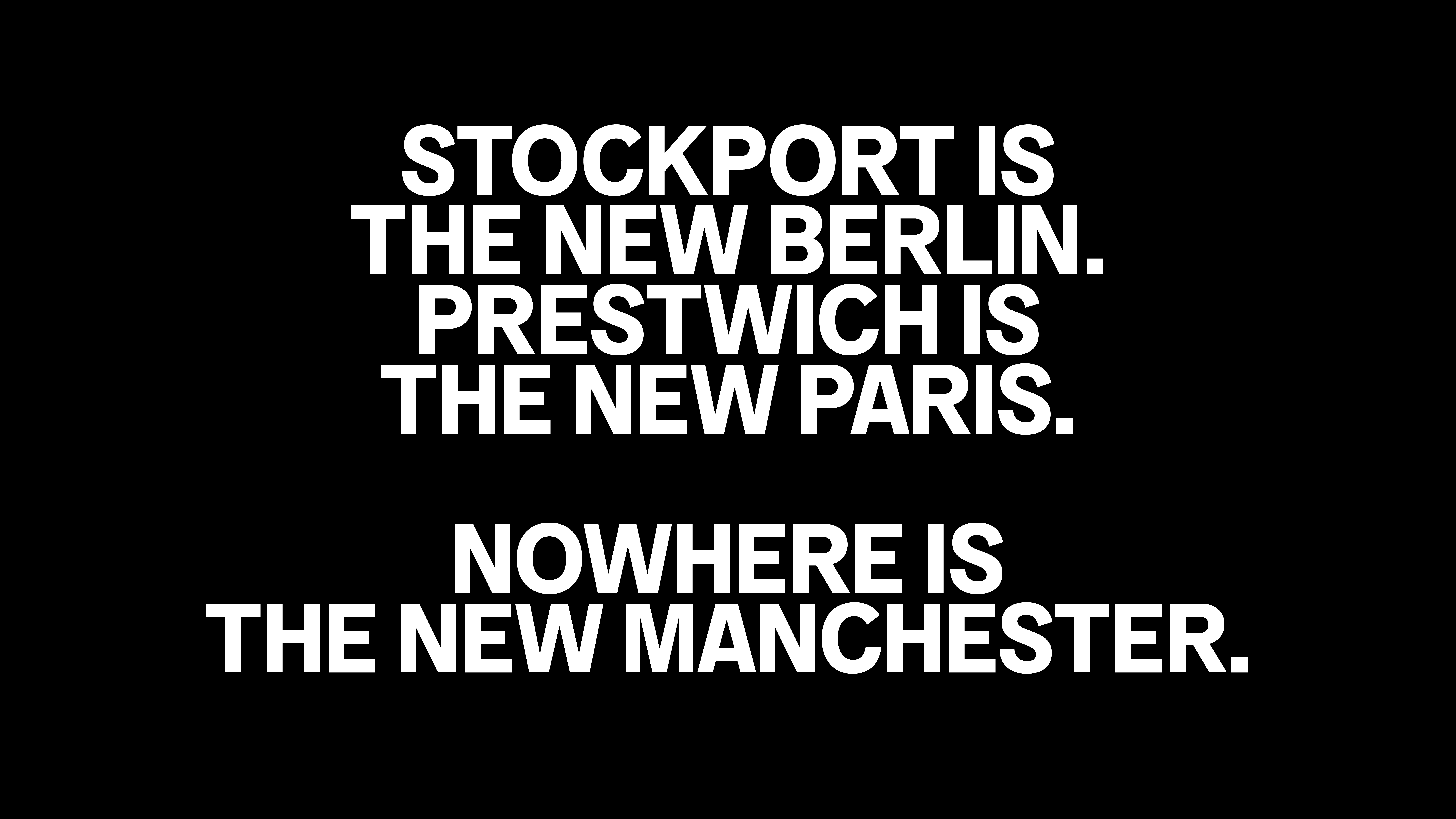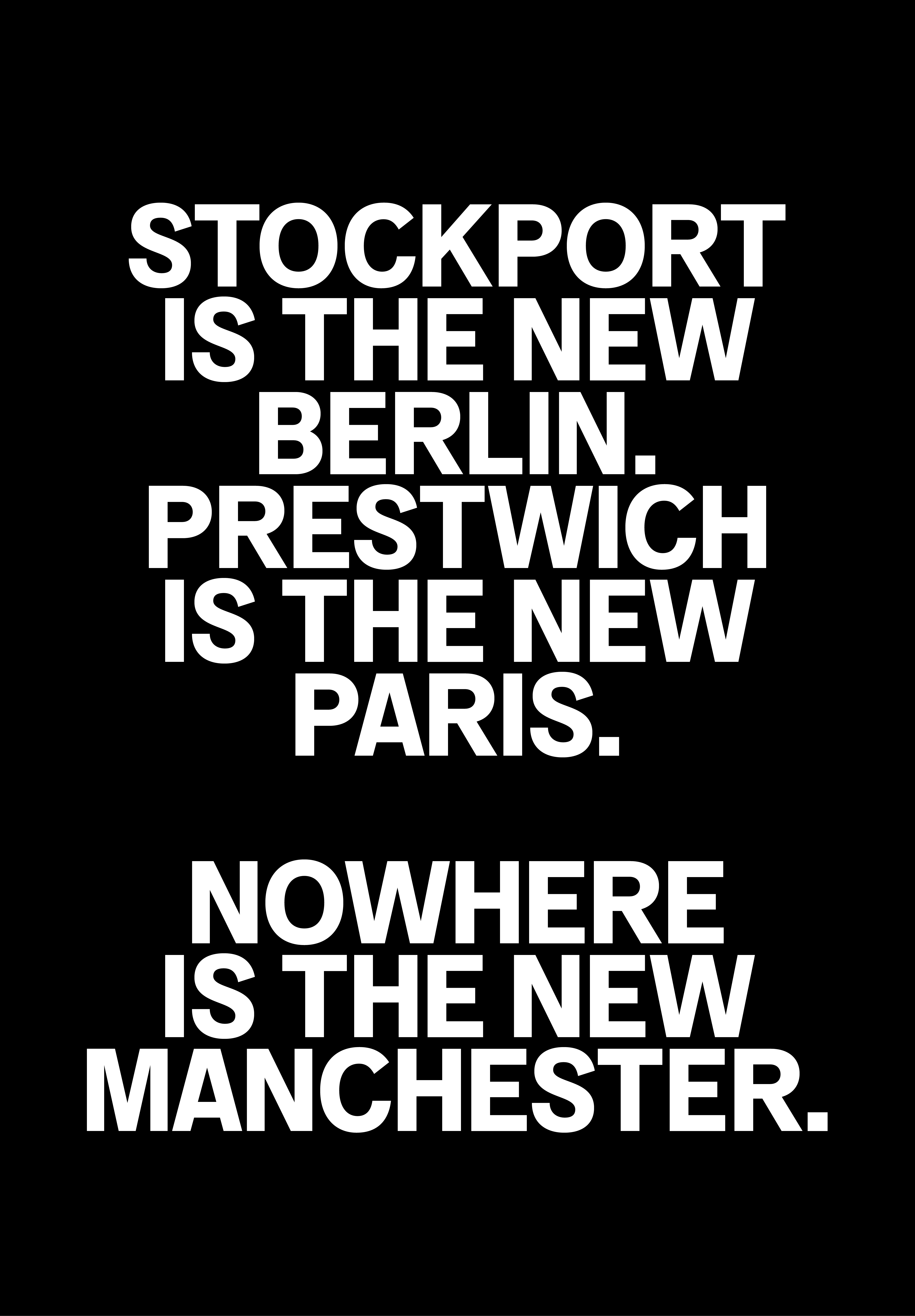
F37 Mancunio®
Mancunio is inspired by one of the last original wooden street signs in Manchester.
Mancunio was an ancient Roman fort.
Mamucium, also known as Mancunio, was the Roman fort that predates the history of Manchester. It was a crucial military installation and supply depot within the Roman province of Britannia. The fort was located near the confluence of the Rivers Medlock and Irwell, a strategic position for controlling trade routes. It also sat at a major junction in Roman Britain where the east to west route from York to Chester intersected with the north to south route from Ribchester to Hadrian's Wall.